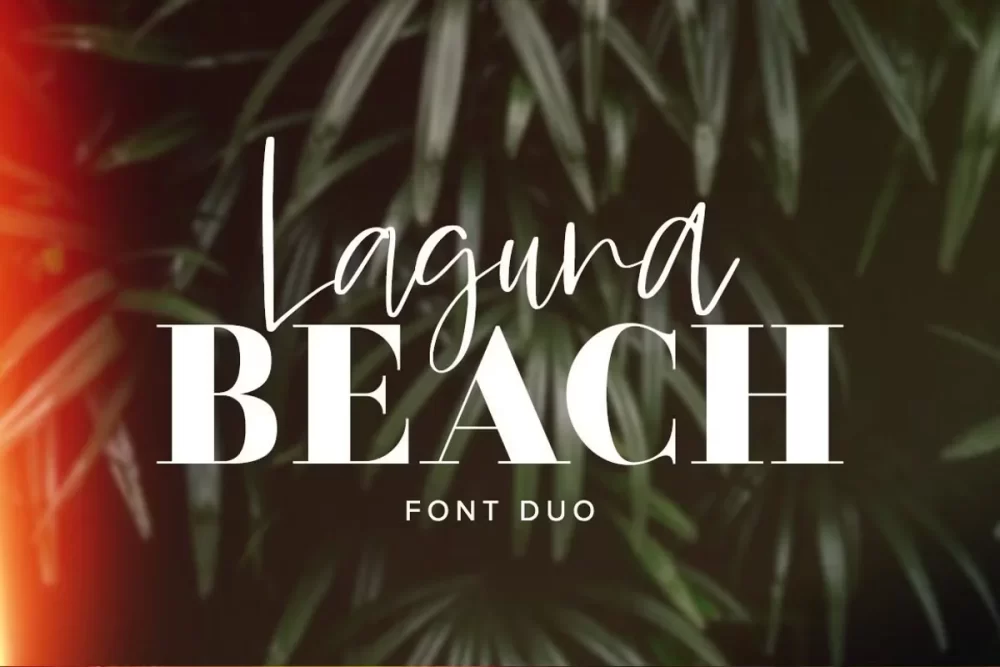
Say hello to Laguna Beach, a stunning serif and script font duo! This classic and simple serif paired with the whimsical script makes a killer combination for every design project, including wedding invitations, blog posts and headers, Instagram posts, quotes, logos and branding, advertising, and more!